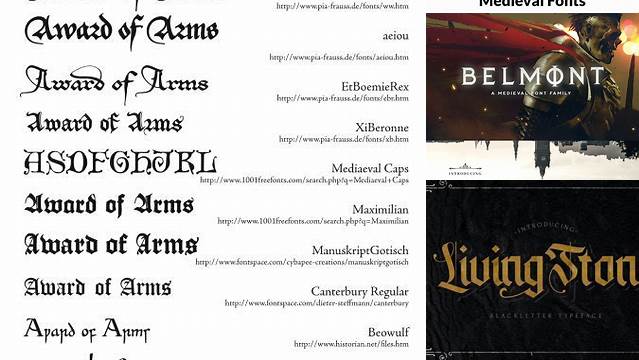
Best Medieval Fonts On Word: A Comprehensive Guide
In this comprehensive guide, we'll delve into the fascinating world of medieval fonts and how you can seamlessly integrate them into your Word documents. If you're looking to add a touch of history, elegance, or a sense of antiquity to your projects, you've come to the right place. From historical documents to creative designs, the right medieval font can transform your work. We'll explore various font styles, their origins, and how to install and use them effectively in Microsoft Word. So, let's embark on this exciting journey into the realm of medieval typography!
1. Understanding Medieval Fonts: A Historical Overview
Hey guys, before we dive into the best medieval fonts, let's first understand the history and context behind them. Medieval fonts, also known as blackletter, Gothic, or Old English fonts, are rooted in the scribal traditions of the Middle Ages, roughly spanning from the 12th to the 15th centuries. These fonts were meticulously crafted by hand, using quill pens and ink on parchment or vellum. Their distinct appearance reflects the tools and techniques of the era. One of the key characteristics of these fonts is their intricate and often ornate letterforms. They feature thick, heavy strokes with sharp serifs and elaborate details. The style of these fonts evolved over time, with regional variations and the influence of different artistic movements.
During the medieval period, the primary function of these fonts was for the writing of religious texts, legal documents, and scholarly works. The elaborate nature of the fonts was a way to showcase the importance of the written word and the prestige of the institutions that commissioned them. The use of blackletter fonts continued into the early days of the printing press, with Gutenberg's iconic Bible being a prime example. Even today, these fonts evoke a sense of history, authenticity, and tradition. They can transport readers to a different time and place, making them a powerful choice for projects that aim to capture a medieval or historical theme. This deep understanding of the fonts' origins helps you appreciate their aesthetic qualities and use them appropriately. They are not just fonts; they're windows into the past.
Understanding the historical context is crucial because it helps you make informed decisions. By knowing the evolution of these fonts, you can choose the one that best suits your project's needs and resonates with your target audience. If you're working on a historical novel, a font that accurately reflects the period will enhance the overall experience. Or, if you're designing a website with a medieval theme, the right font will instantly set the tone and create an immersive atmosphere. Keep in mind the details of the font. Like the intricate details, which make each font unique, and the way the font was initially used for historical documentation.
1.1 The Evolution of Blackletter Fonts
Let's get into the fascinating evolution of blackletter fonts, also known as Gothic or Old English fonts. These fonts have a rich history that mirrors the cultural and technological shifts of the Middle Ages. It all started with the Carolingian minuscule, a script that emerged in the Carolingian Empire around the 8th century. This was the foundation from which blackletter fonts evolved, moving away from the earlier, less standardized scripts. The transition began in the 12th century, with the rise of universities and the increasing demand for books. Scribes began to adapt the Carolingian minuscule to create a more compact and efficient script.
As time went on, regional variations emerged, each with its own distinct characteristics. For example, in France, the textualis font was favored, known for its precise, upright letterforms. In Germany, a more angular and compressed style known as Schwabacher developed. The invention of the printing press in the mid-15th century by Johannes Gutenberg was a game-changer. Gutenberg's printing press used movable type, which required fonts that could be easily reproduced. Blackletter fonts were readily adaptable to this new technology. They became the standard typefaces for printed books for centuries. The printing press also led to a standardization of letterforms, though regional variations persisted.
Over the years, blackletter fonts evolved in response to changes in artistic styles and technological advancements. In the Renaissance, with the rediscovery of classical antiquity, humanist scripts emerged as an alternative to the more elaborate blackletter fonts. Yet, blackletter continued to be used, particularly in Germany and other parts of Europe. The 19th and 20th centuries saw a revival of interest in blackletter fonts, often used in posters, advertisements, and decorative designs. The story of blackletter fonts is a testament to the enduring power of the written word and its ability to adapt to changing times. These fonts have a lasting legacy in the world of typography.
1.2 Key Characteristics of Gothic Fonts
Alright, let's break down the key characteristics of Gothic fonts, so you know what to look for and how to spot them. These fonts are instantly recognizable due to their unique features. The most prominent characteristic is the heavy, dark appearance. The strokes are thick and often overlap, creating a dense and compact texture. This is what gives these fonts the name “blackletter.” Another defining feature is the use of sharp, angular serifs. Unlike the rounded serifs found in many other fonts, Gothic fonts typically have serifs that are pointed and often extend to create a sense of movement or embellishment. These serifs contribute to the font's overall ornate and sometimes intimidating appearance.
Gothic fonts also frequently incorporate ligatures, which are two or more letters joined together to save space and improve the flow of text. These ligatures, like